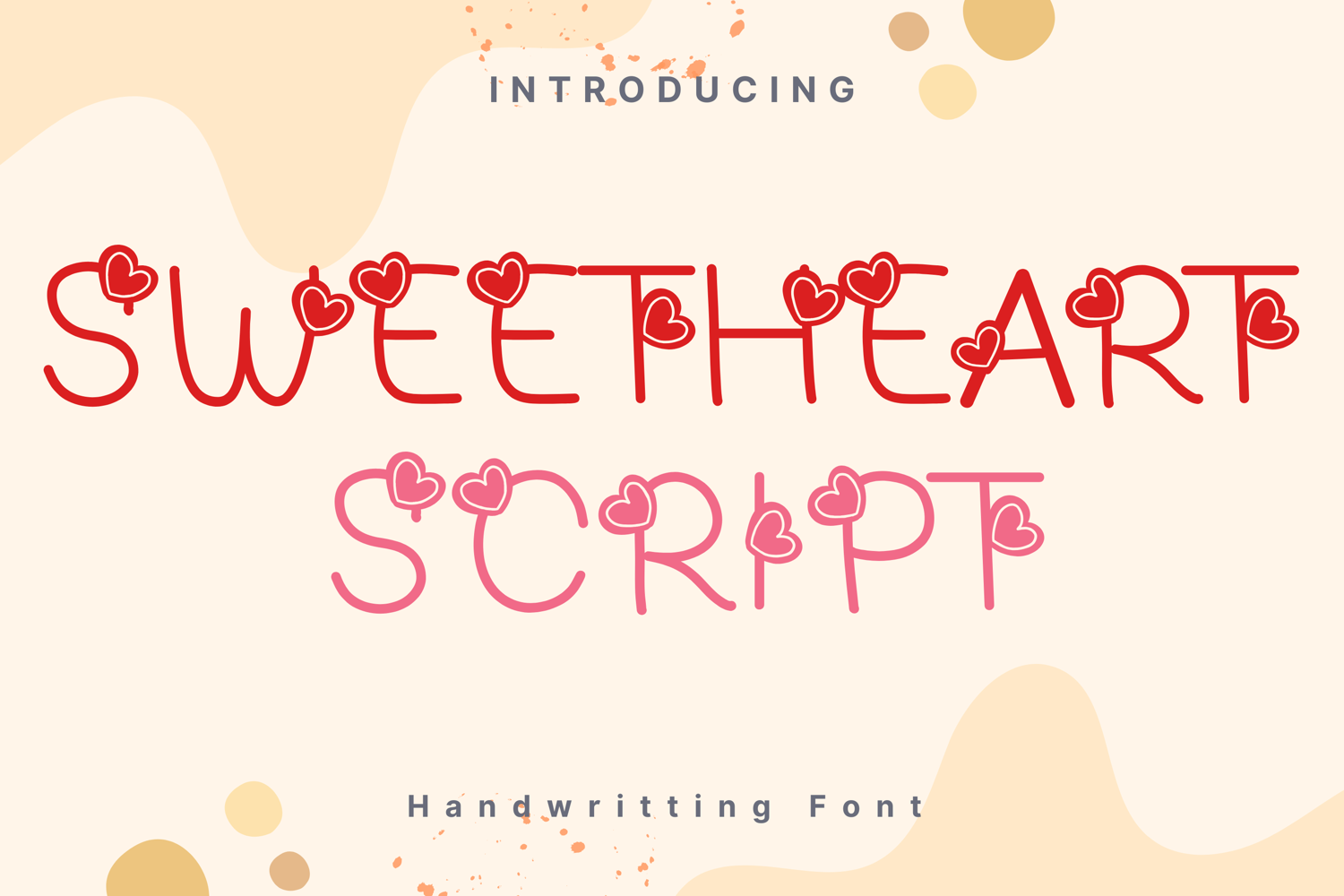
Sweetheart Script Style
Sweetheart Script is a charming and playful handwritten font adorned with adorable heart accents on each letter. Its clean, rounded strokes paired with whimsical heart decorations make it ideal for Valentine’s Day cards, romantic invitations, love notes, wedding stationery, and sweet branding projects. The friendly, casual vibe adds warmth and personality to any design, perfect for expressing affection and joy.